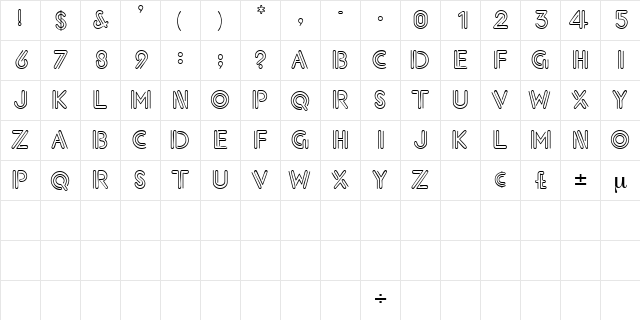
NeonDisplayCapsSSK Regular
NeonDisplayCapsSSK has a distinctly futuristic character, with geometric precision and clean angles that feel at home in technology, gaming, and sci-fi contexts.
Pro Tip: Try NeonDisplayCapsSSK with generous letter-spacing in UI labels and navigation — the geometric forms benefit from room to breathe.